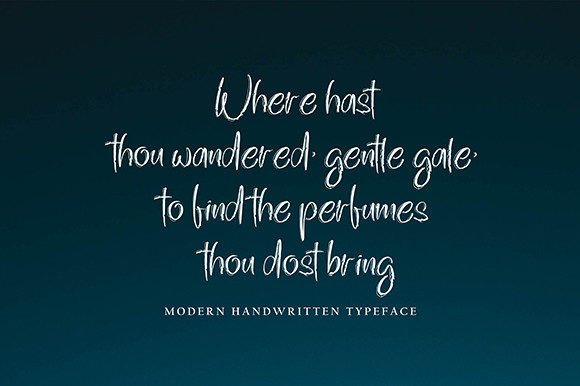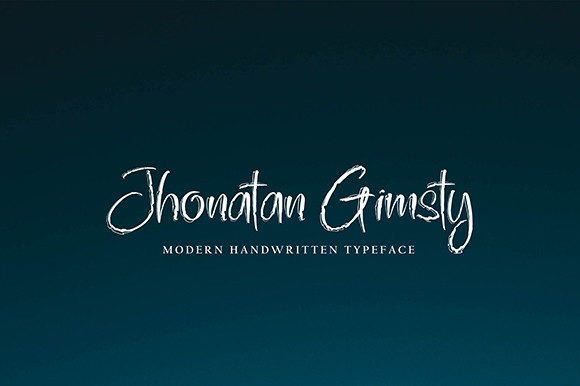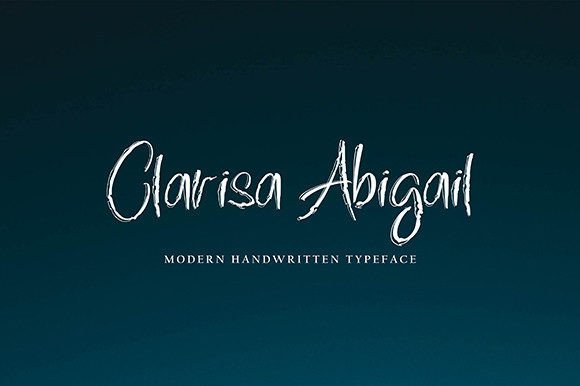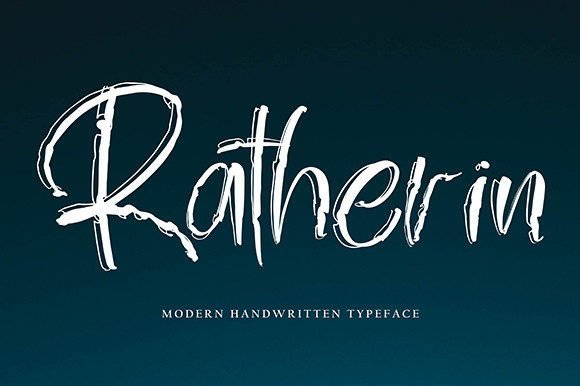
Introduction to Ratherin Font
Ratherin is a flowing handwritten font, described by an elegant touch, perfect for your favorite projects.
Key Features of Ratherin Font
Why Choose Ratherin Font?
Ratherin Font offers exceptional quality and versatility, making it a valuable addition to your design toolkit. Whether you’re creating for personal projects or commercial use, Ratherin Font delivers professional results.